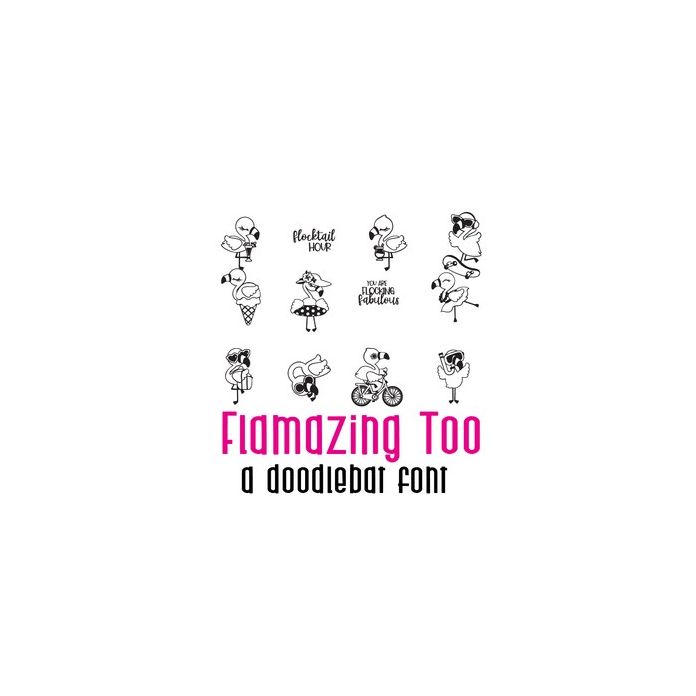
DB Flamazing Too Doodlebat Font
This fun doodlebat font features 26 summer loving flamingos. Perfect for cards, gifts, decor, crafts, scrap book pages, planner stickers and more!